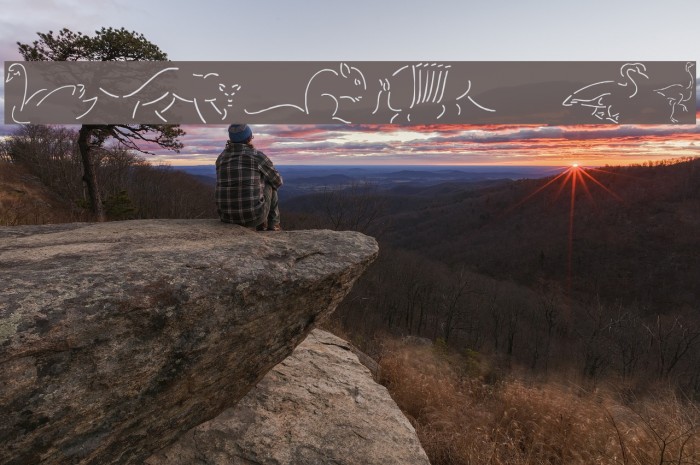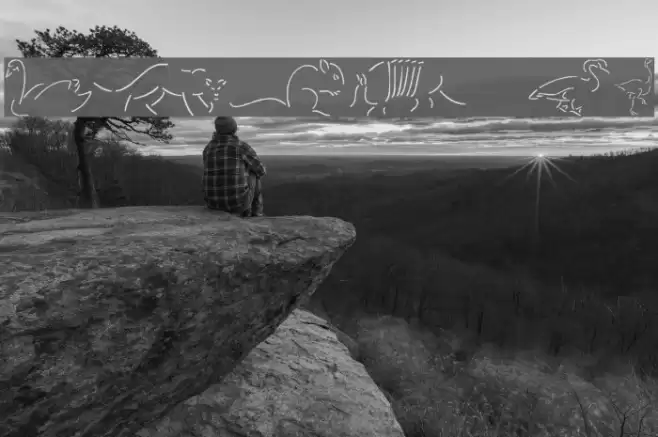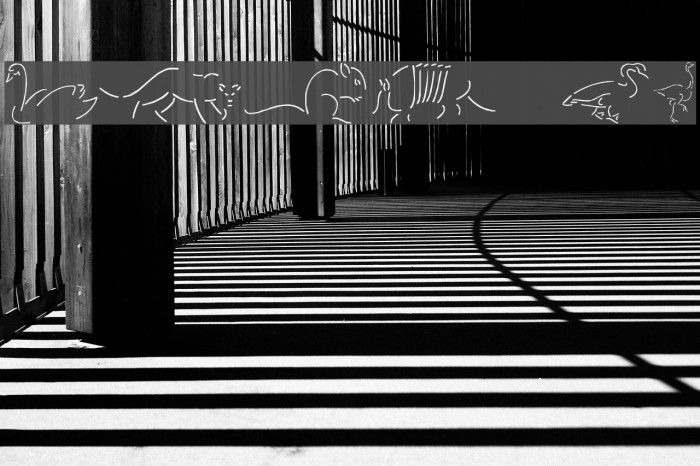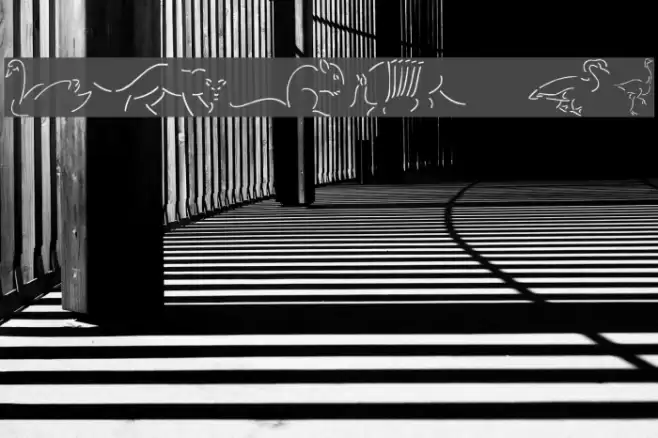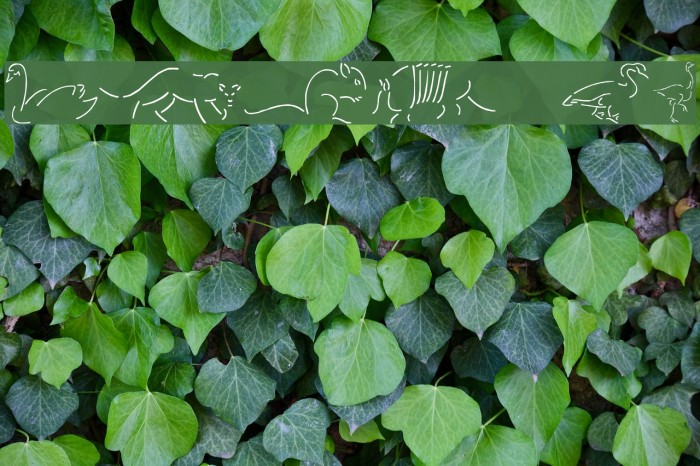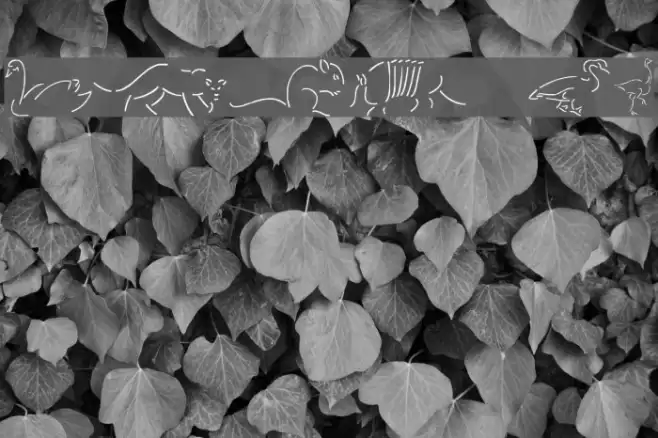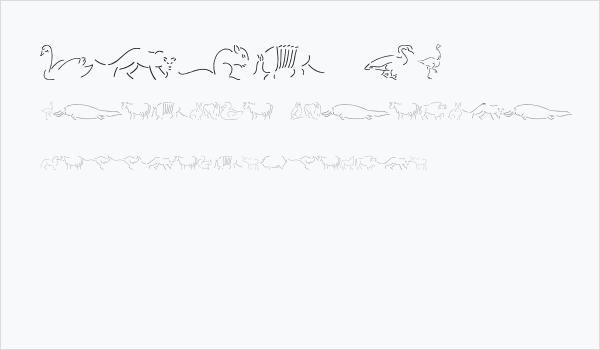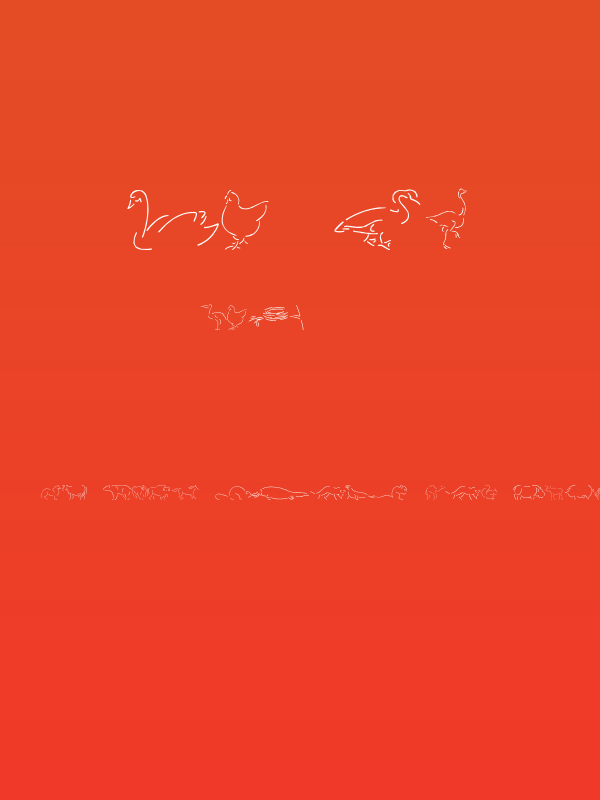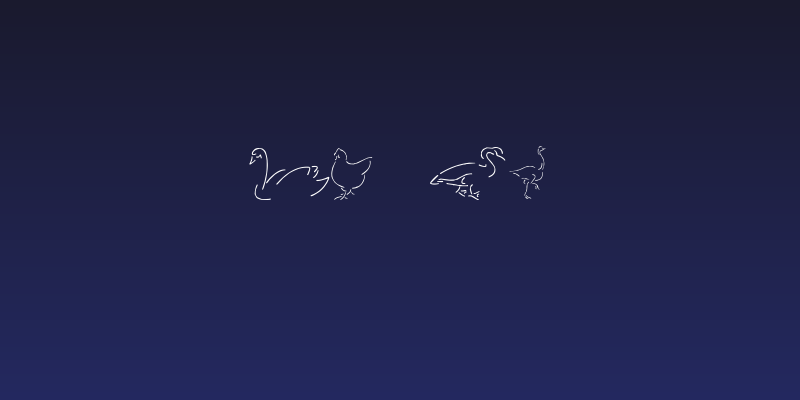
Founa BC Font
Founa BC Description
A decorative font composed of minimalist, single-line animal illustrations representing each character, featuring birds, mammals, and other fauna in a continuous, sketch-like style.
Overall StyleDecorative, Minimalist, Playful
Use CaseLogos, Headlines, Posters, Educational graphics
Proposed ProjectsChildrenÒ€ℒs books, educational materials, animal-themed branding, creative posters, decorative headings.